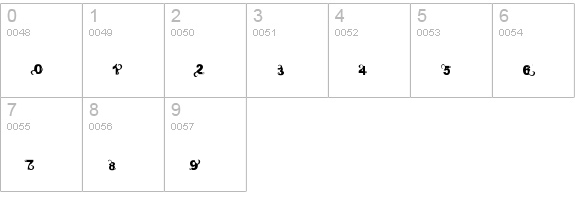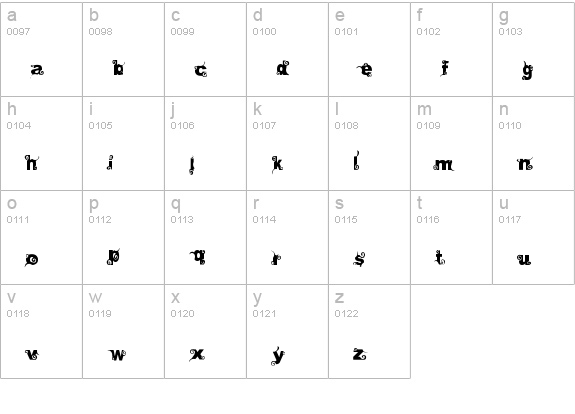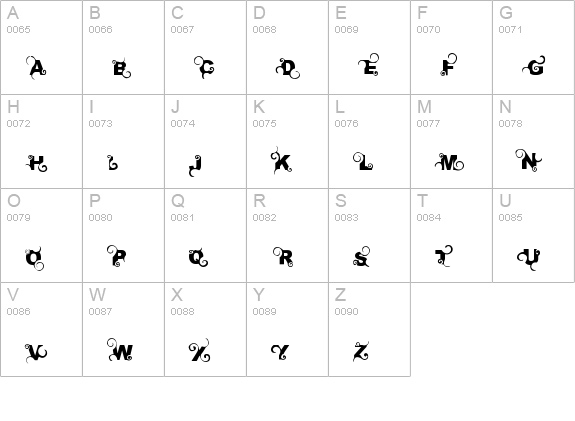
curly Font Details
Curly Font is a delightful and playful typeface that adds a touch of whimsy to any design project. Its intricate curls and swirls create a sense of elegance and charm, making it perfect for invitations, greeting cards, and other creative endeavors. This font is the perfect choice for those looking to add a unique and artistic flair to their work. Best of all, Curly Font is completely free to download at FontsMarket.com. Simply visit the website and get instant access to this beautiful typeface. Whether you're a graphic designer, a blogger, or just someone looking to add a special touch to your projects, Curly Font is sure to impress with its stylish and eye-catching design. Download it today and let your creativity shine with this fantastic free font!